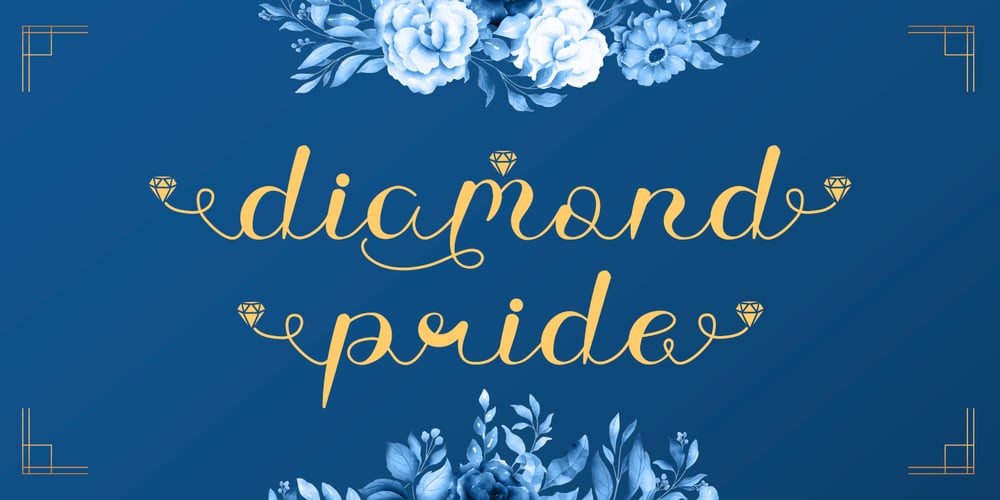
Diamond Pride Font Family was designed by Bayu Suwirya and published by Illushvara. Diamond Pride contains 1 styles and family package options. Diamond Pride is a sweet and beautiful script font. It features an elegant style that makes it perfect for logos, branding, invitations, stationery, wedding designs, social media posts, and much more.